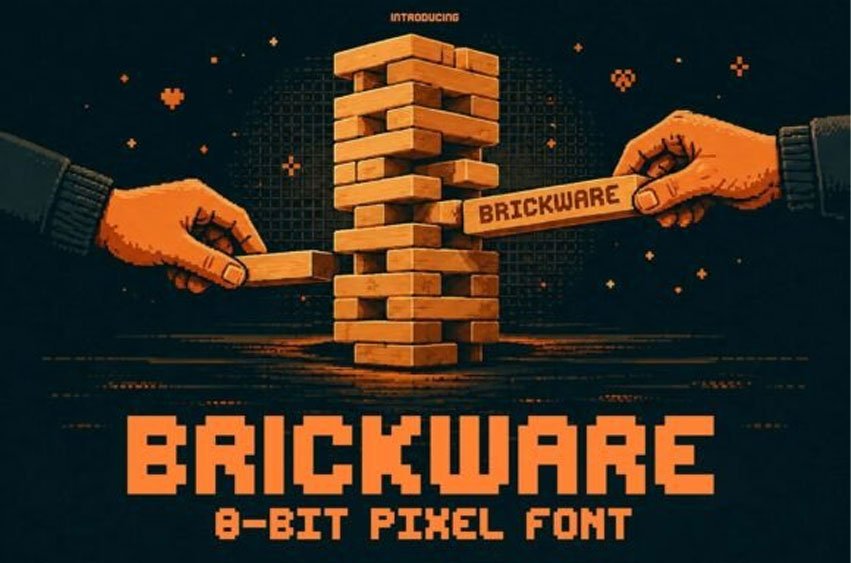
Brickware Font Level up your retro gaming aesthetic, arcade nostalgia, and pixel-art visuals with BRICKWARE! Built as an authentic 8-bit pixel display font, it features bold modular block shapes, sharp grid alignment, and sturdy, brick-like letter proportions. Its thick digital silhouette captures the classic charm of early console games, giving titles an unmistakable arcade punch.
Ideal for retro video game UI, esports banners, pixel art graphics, arcade signage, streetwear apparel, YouTube thumbnails, tech posters, and custom Cricut or Silhouette craft SVG creations!